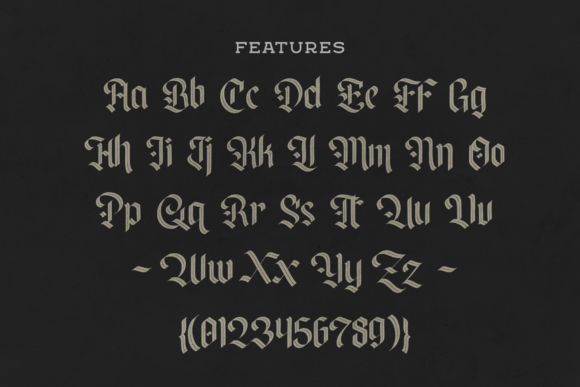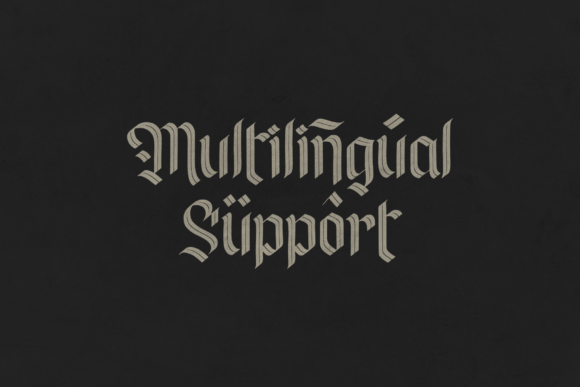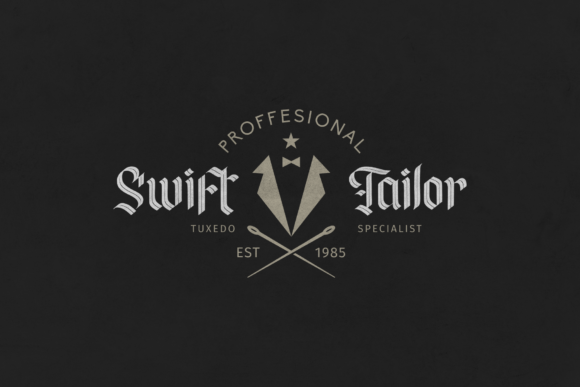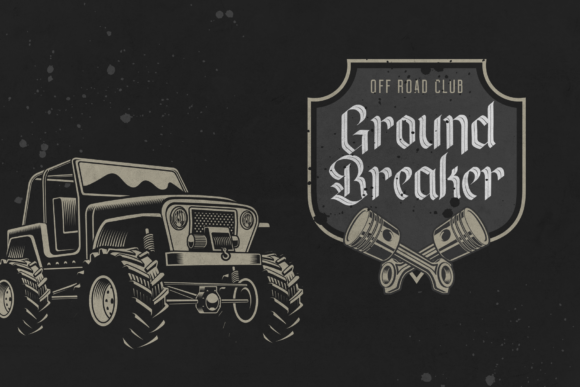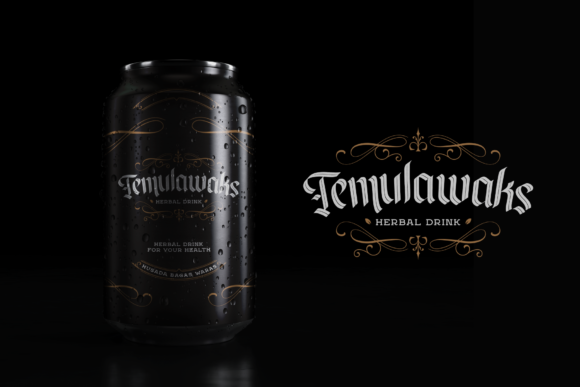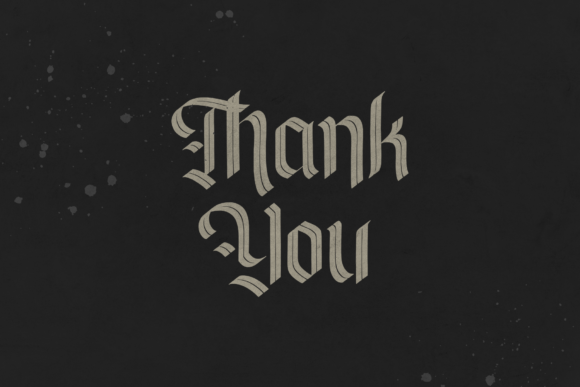
Introduction to Silverback Font
Silverback is an elegant and distinct blackletter font.
This font is neatly crafted and highly detailed Whatever the topic, this font will be a wonderful asset to your font library, as it has the potential to enhance any creation.
Key Features of Silverback Font
Why Choose Silverback Font?
Silverback Font offers exceptional quality and versatility, making it a valuable addition to your design toolkit. Whether you’re creating for personal projects or commercial use, Silverback Font delivers professional results.